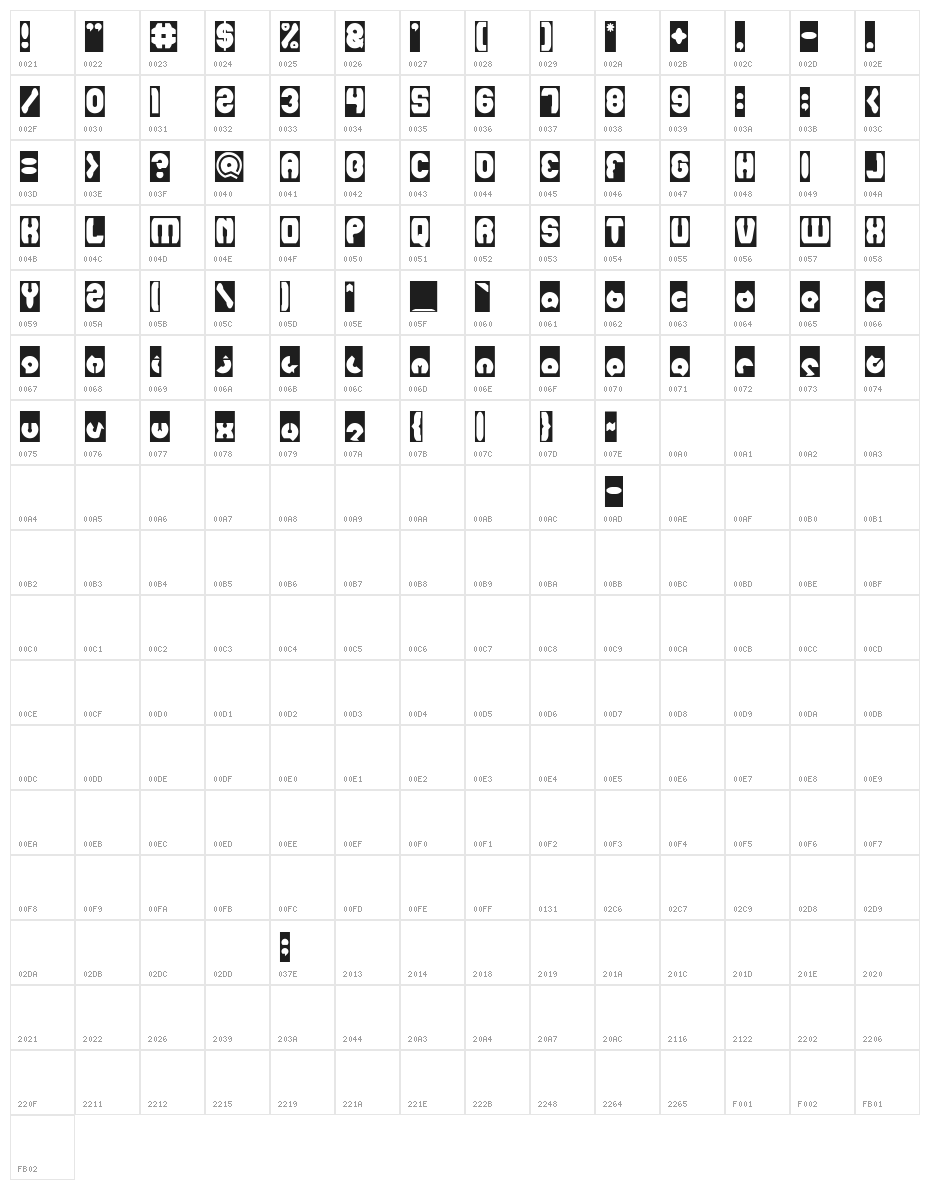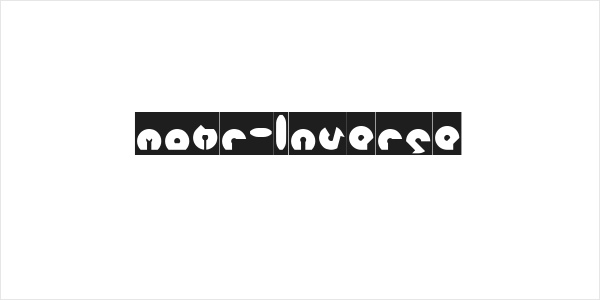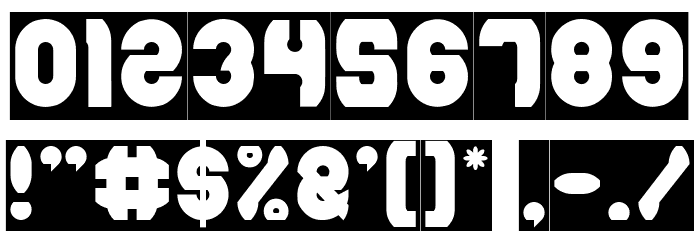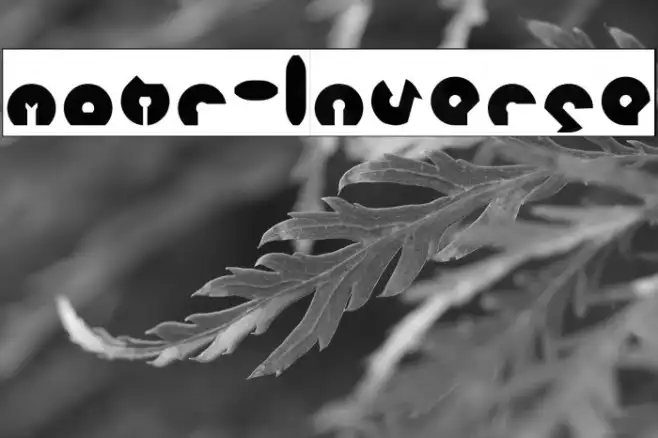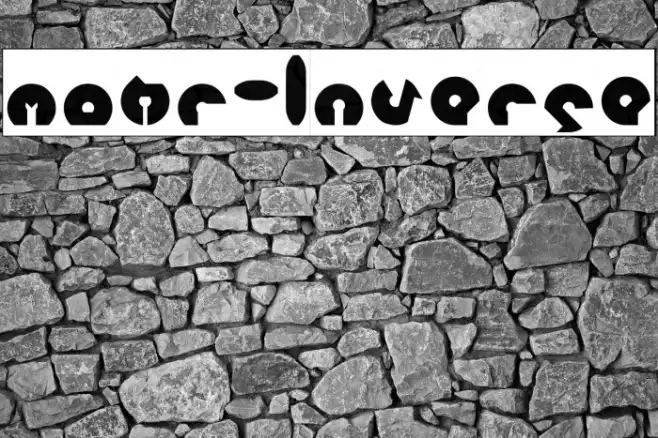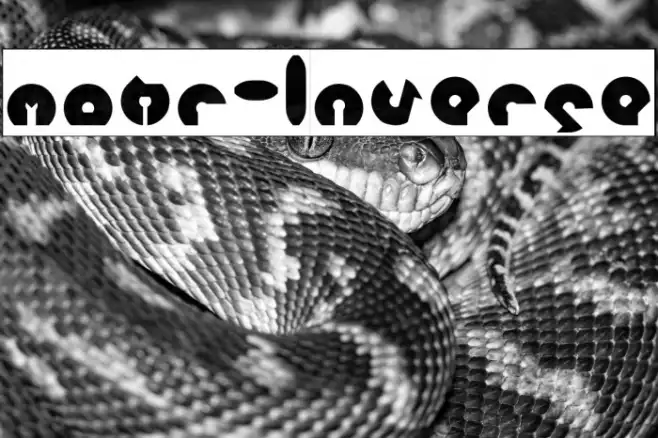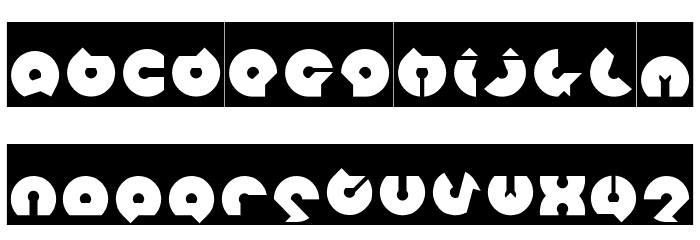
mohr-Inverse Font
mohr-Inverse Description
This font features a bold and playful design with a unique inverse style, where the negative space is prominently used to create the letterforms. Each character is crafted with a strong geometric influence, resulting in a visually striking appearance. The uppercase and lowercase letters maintain a consistent weight, with rounded edges and a blocky structure that enhances readability. The numbers and special characters follow the same design principles, ensuring uniformity across the font. This font's distinct style makes it ideal for creative and eye-catching designs.